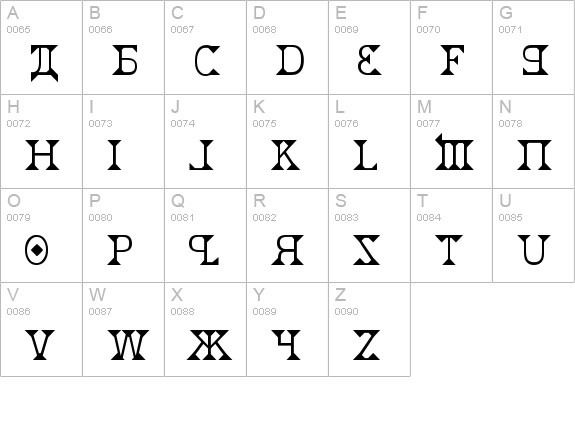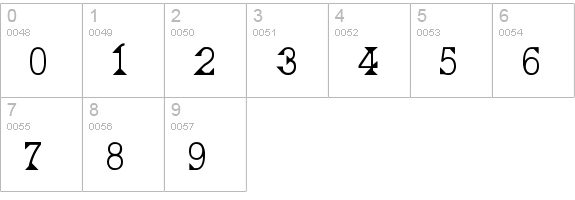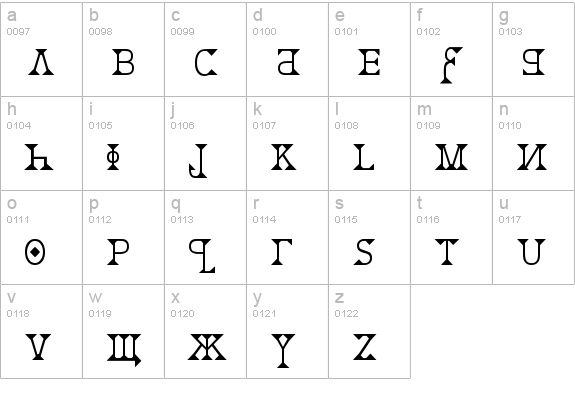
Kremlin Font Details
Introducing Kremlin, a stunning and versatile font that combines elegance with a touch of modernity. This font is perfect for a wide range of design projects, from branding and advertising to editorial and packaging. With its clean lines and distinctive letterforms, Kremlin adds a sophisticated and professional touch to any design. One of the best things about Kremlin is that it is free. Yes, you read that right - this incredible font is freely available to download at FontsMarket.com. Now you can enhance your creative projects without breaking the bank. Whether you're a professional designer or just starting out, Kremlin offers the perfect solution for adding that extra touch of finesse to your work. Kremlin's versatility is another standout feature. With multiple weights and styles, this font can adapt to any design concept, making it a go-to choice for graphic designers and typographers alike. Its legibility and readability make it ideal for both print and digital applications, ensuring that your message is clear and impactful. But Kremlin is not just about aesthetics; it also offers a user-friendly experience. Its easy-to-read letterforms and well-crafted kerning ensure a smooth and efficient workflow. With Kremlin, you can spend less time worrying about font compatibility and more time focusing on your creative vision. So why wait? Download Kremlin for free at FontsMarket.com and unlock a world of design possibilities. Whether you're working on a logo, a website, or a magazine layout, Kremlin is the perfect companion to elevate your designs to new heights. Embrace the elegance and versatility of Kremlin and let your creativity shine.